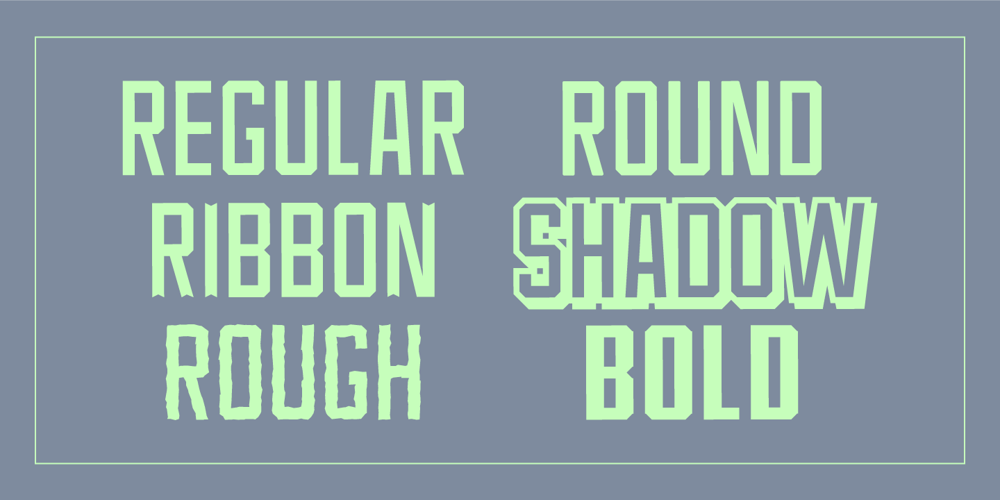
Spitzenklasse Font Family was designed by Jakob Fischer and published by PizzaDude.dk. Spitzenklasse contains 6 styles and family package options. Spitzenklasse is for that project of yours, where you need something really stylized, legible and beautiful at the same time!